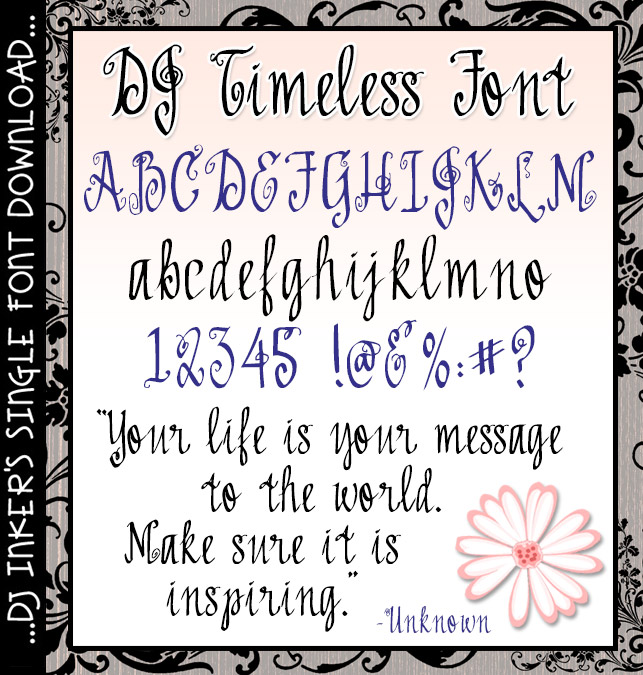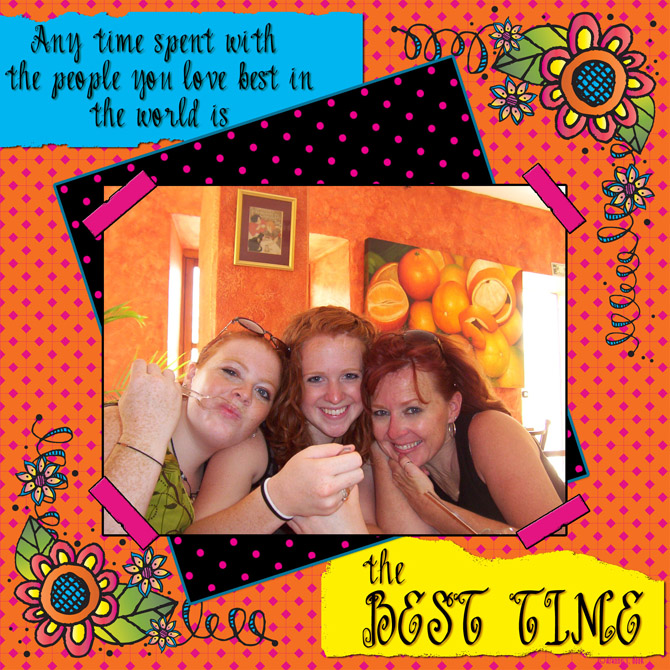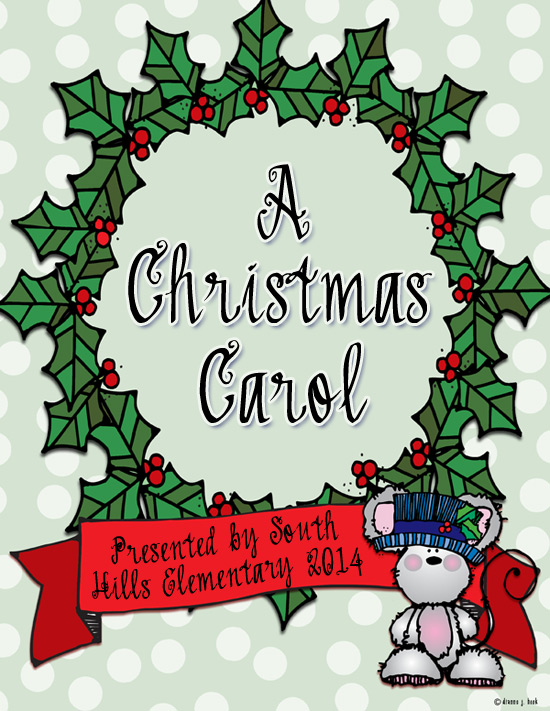
DJ Timeless Font Download
Bring an elegant flair to your creations when you type with our lovely
NEW 'DJ Timeless' font! This beautiful calligraphy lettering will
be excellent for making cards, announcements & fliers for special occasions
like weddings & anniversaries, graduation & more. This font looks
especially nice in darker colors & larger sizes. (djdf68)